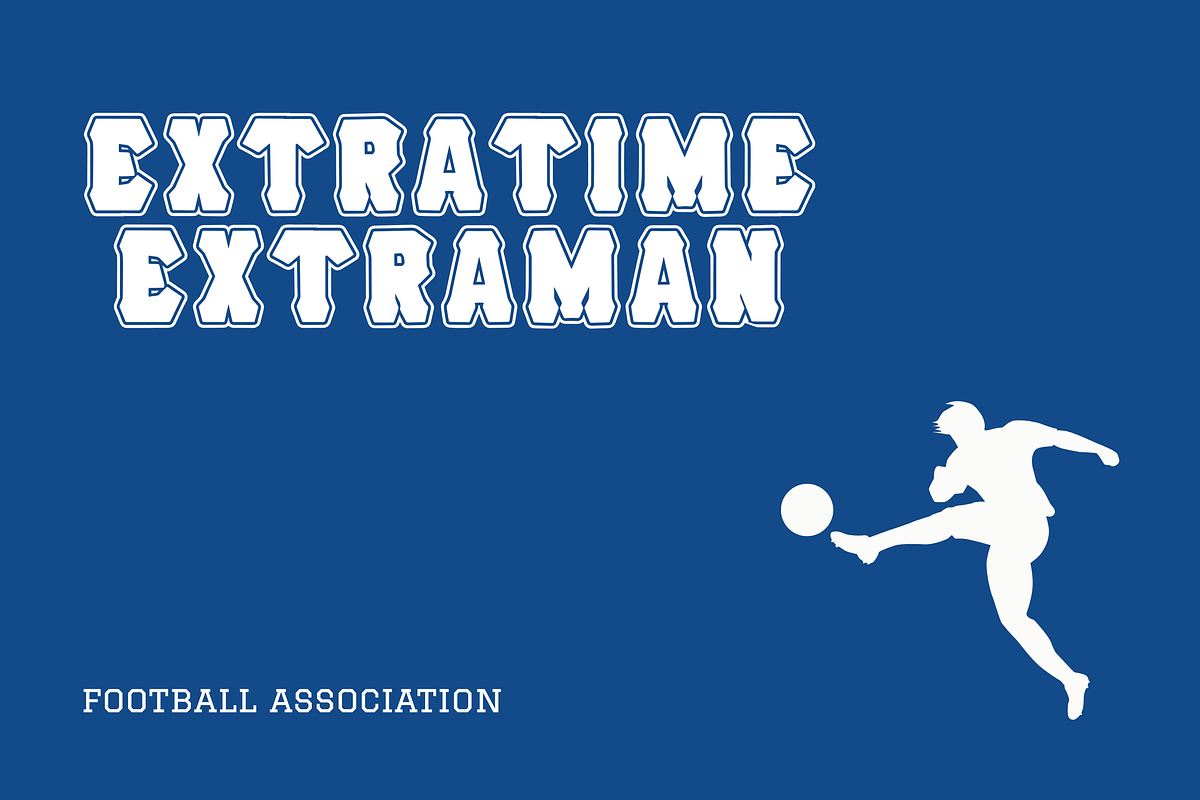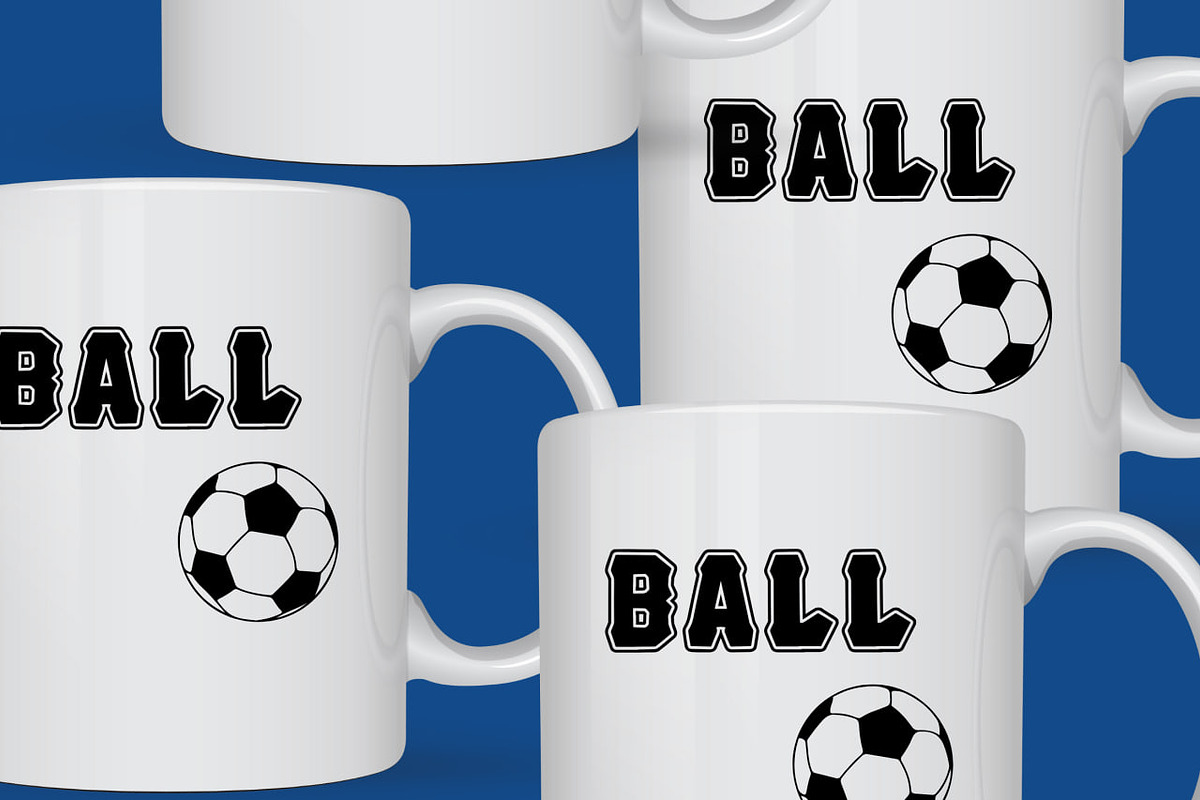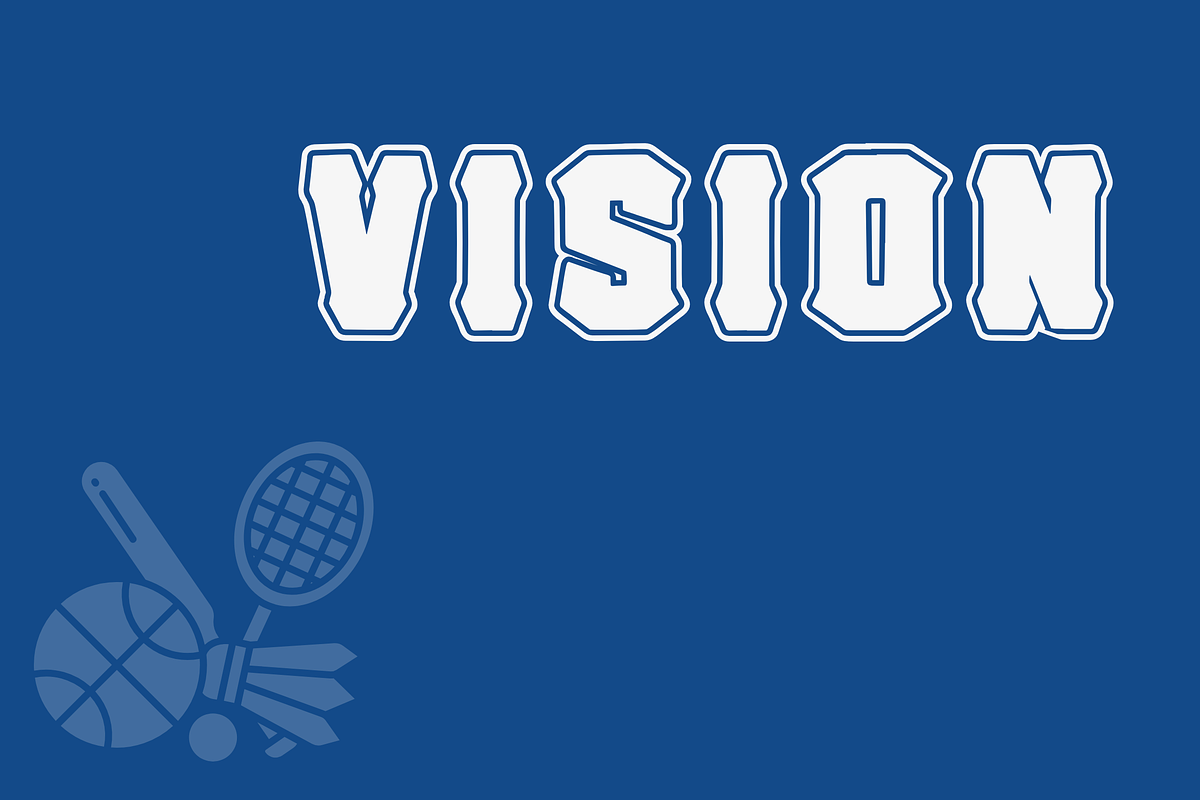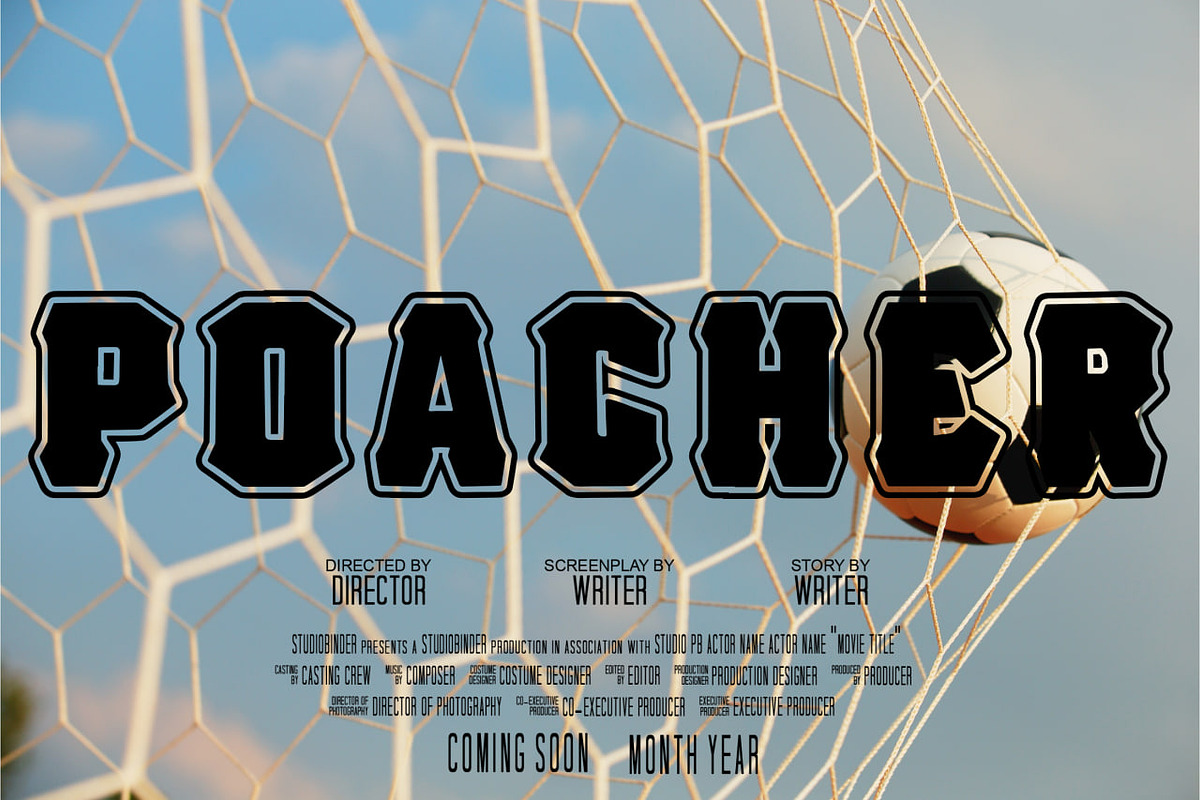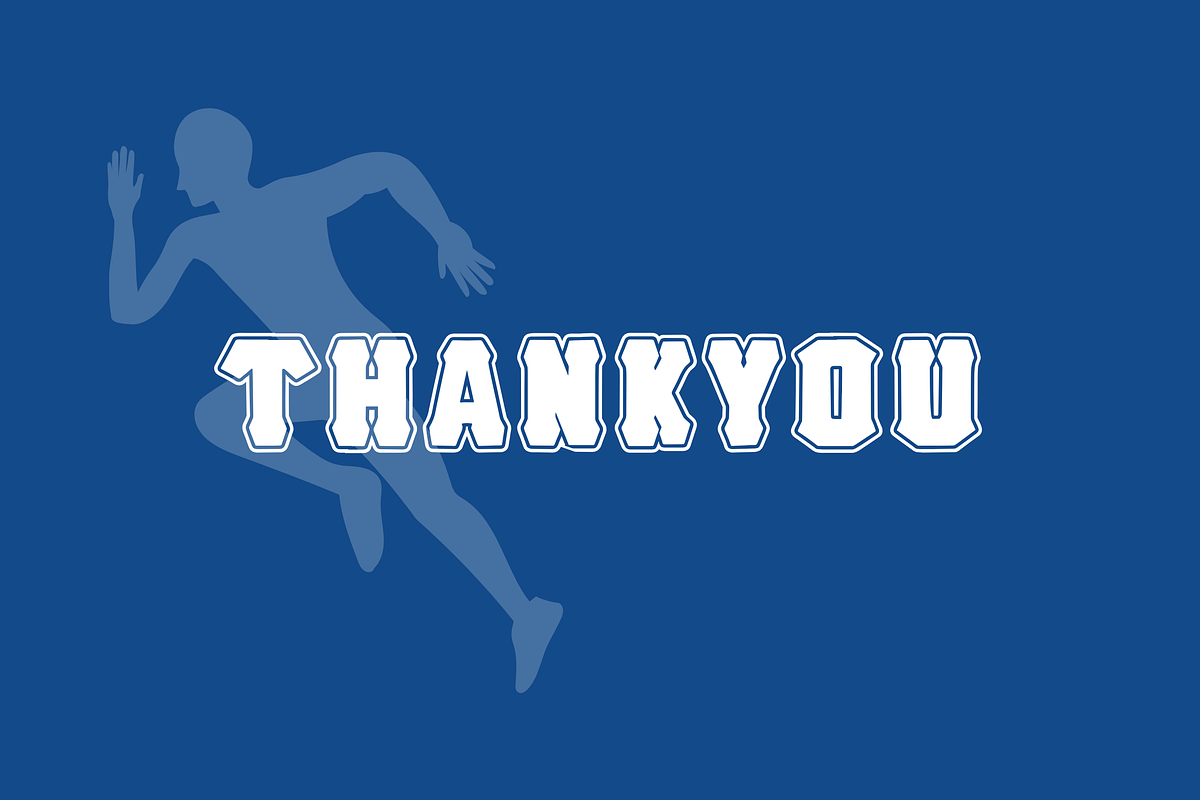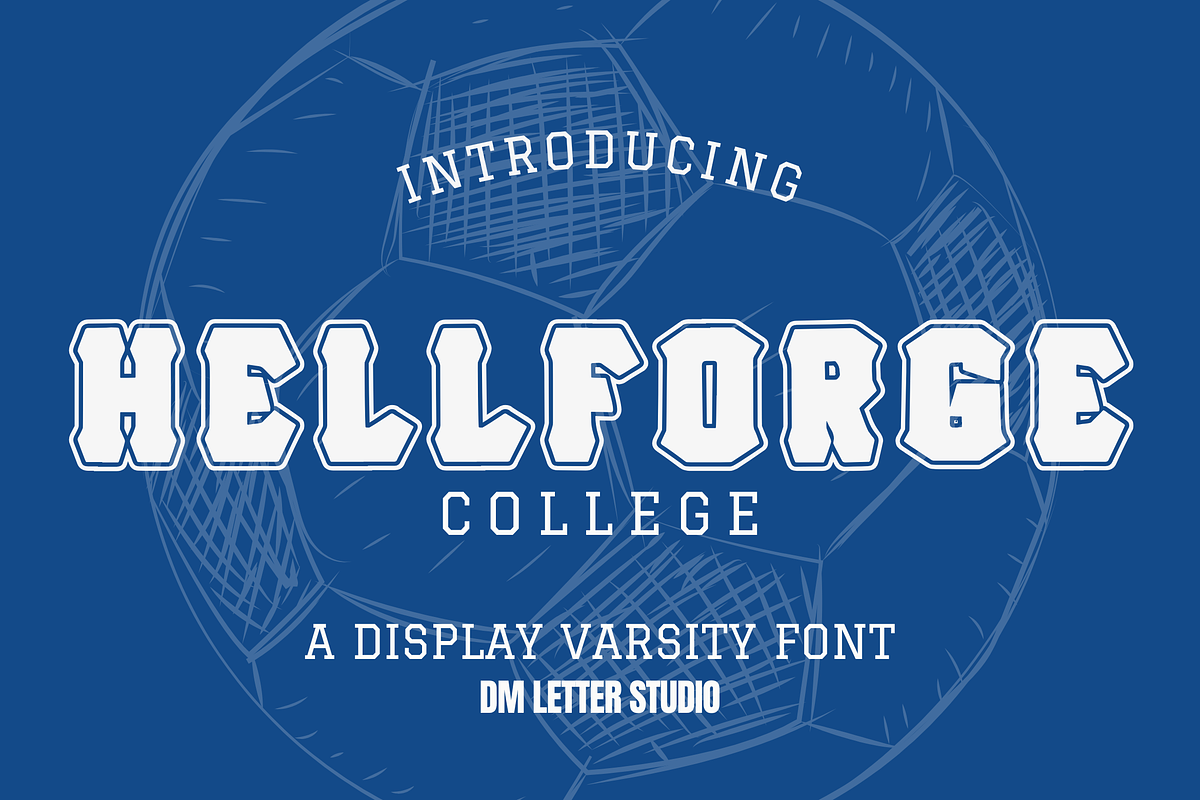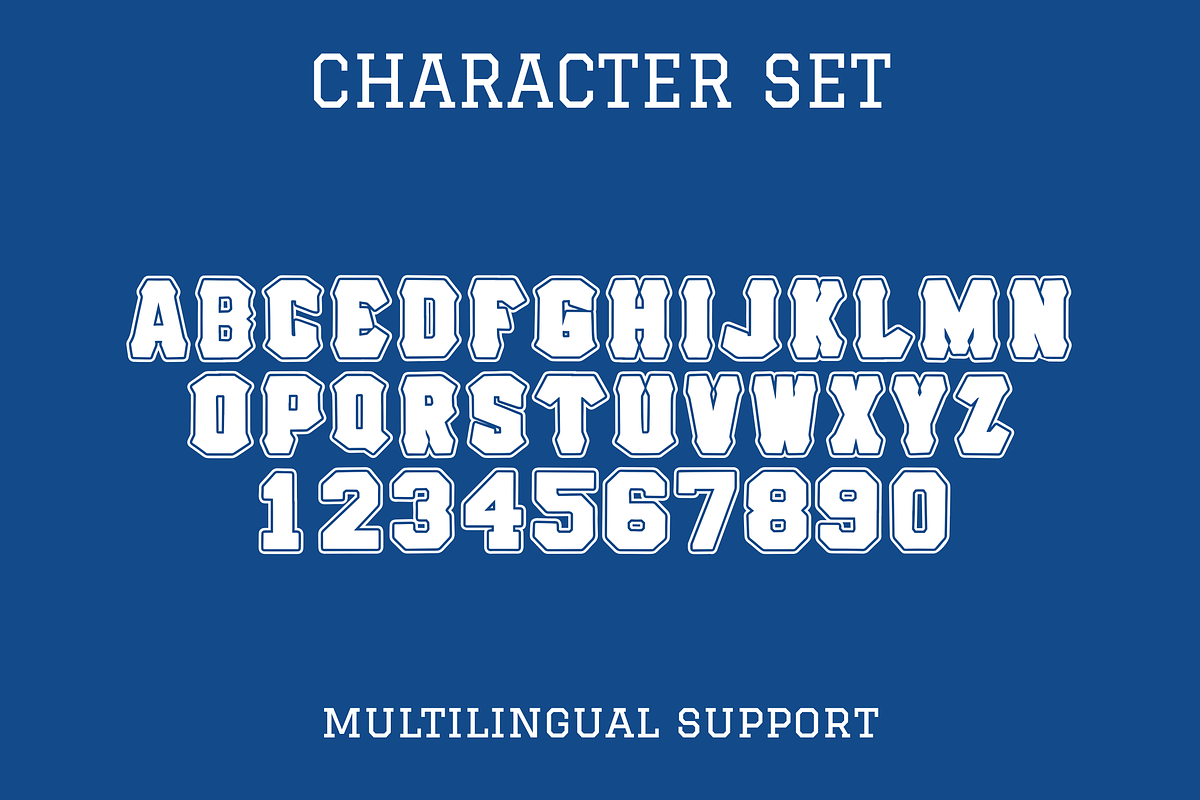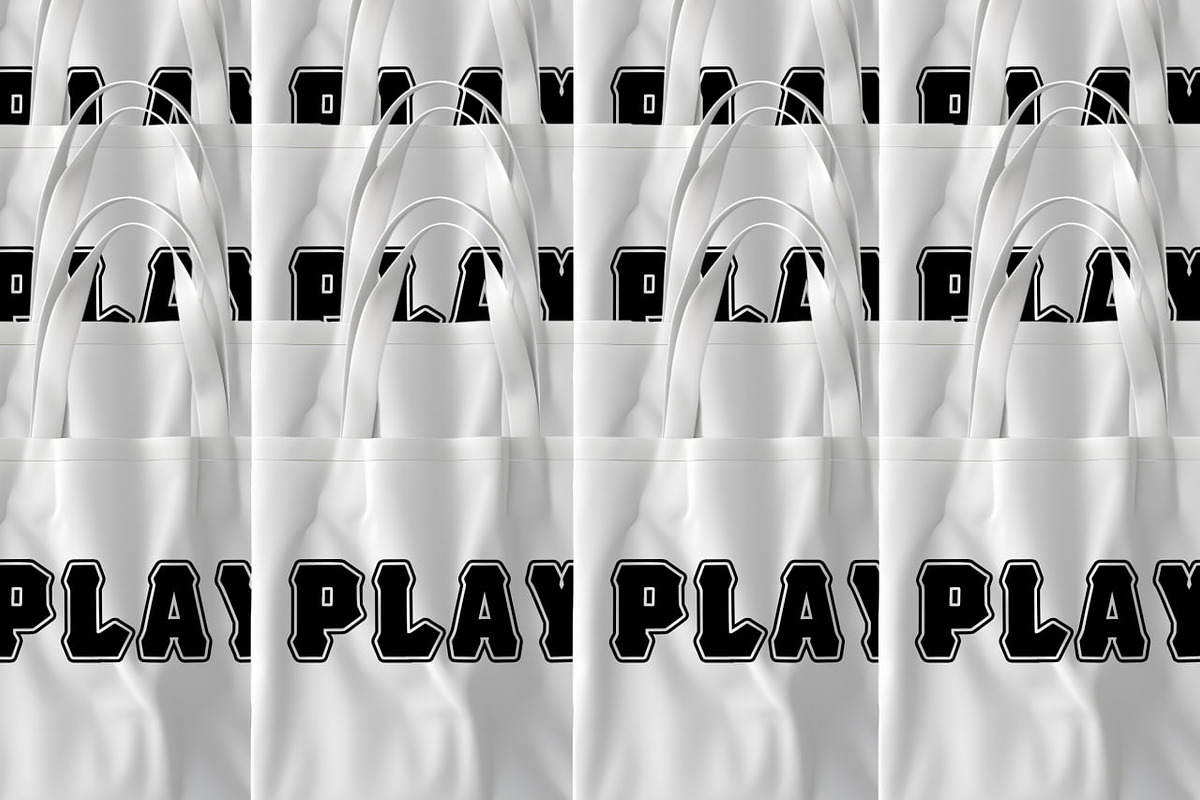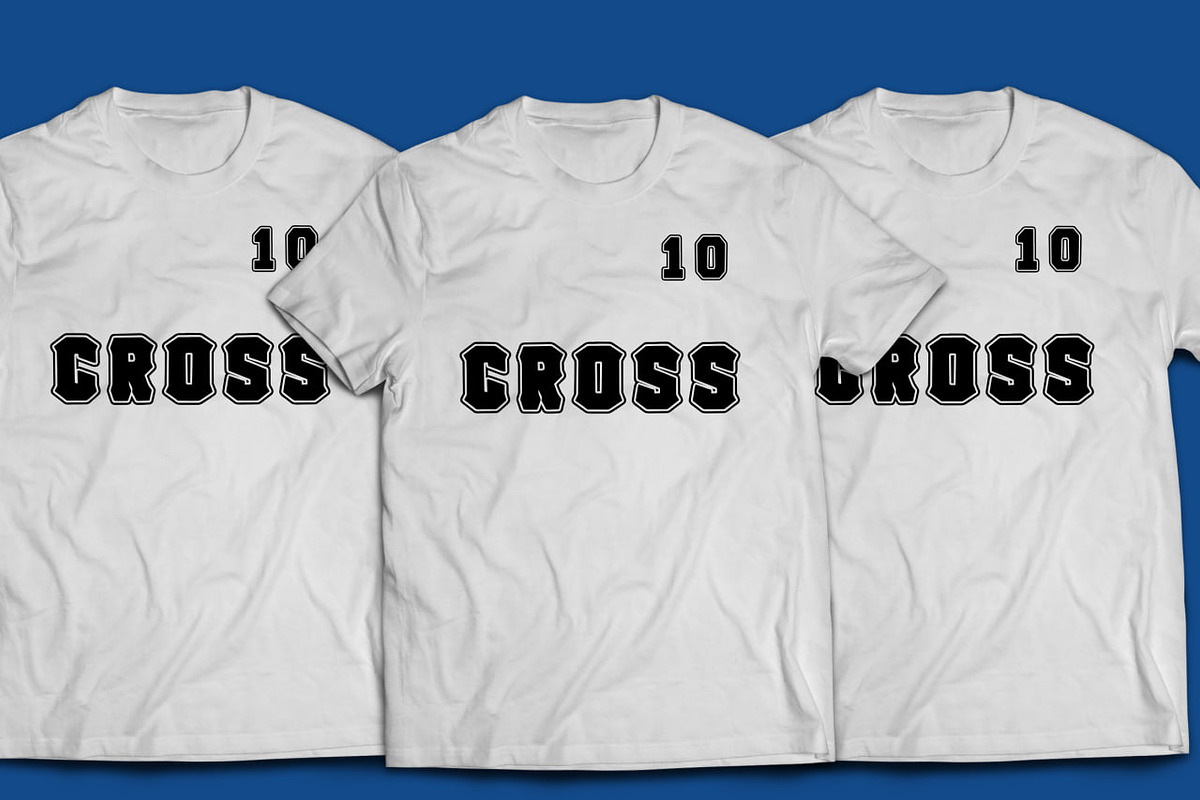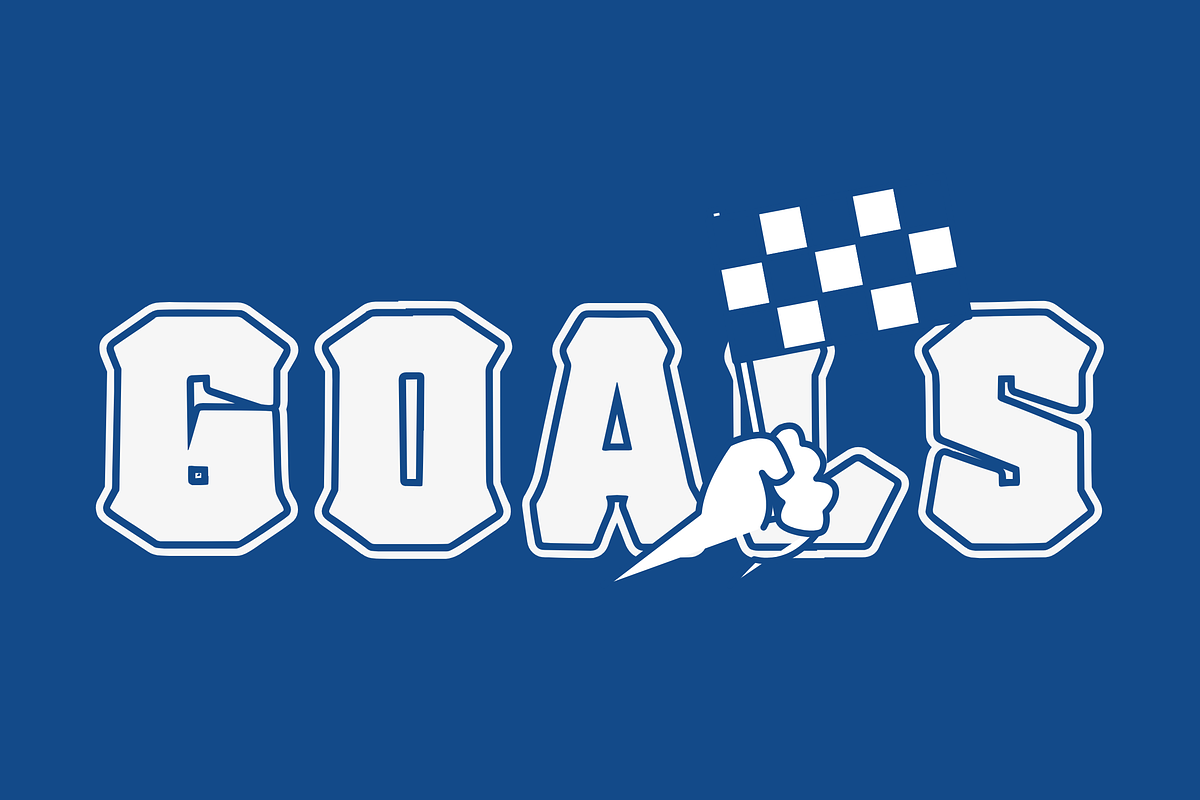
Hell Forge College
Meet Hell Forge College, the Varsity Display Font
Hell Forge College is a bold varsity-style display font built with a forged, athletic character. The shapes feel strong and structured, inspired by classic college lettering with a rugged edge. Each letter carries confident weight, making headlines look powerful and team branding feel authentic. Use Hell Forge College for sports designs, campus themes, streetwear, team merch, posters, and bold logo projects. As a result, your typography feels energetic, competitive, and ready for game day.
Fast layouts with the Hell Forge College Font
Start with stacked team names or bold initials for maximum impact. After that, pair it with a clean sans serif for smaller supporting text like dates or slogans. Because the style is bold, keep spacing balanced so letters don’t feel crowded. In addition, it works beautifully inside shields, circular badges, and ribbon banners. Finally, save palettes like navy and white, red and cream, black and gold, or forest green and ivory for classic varsity looks.
Creative uses and quick wins
- Team logos, jersey names, and sports branding
- College-themed posters and event graphics
- Streetwear hoodies, caps, and varsity merch
- Gym, club, and tournament branding
- Uppercase and lowercase letters
- Numbers and basic punctuation
Design tips for Hell Forge College
Use it for bold headlines and keep body text simple for clarity. Also, increase tracking slightly for cleaner embroidery or vinyl cutting. For print, export at 300 DPI and test small details before production. For digital use, scale up a bit to keep edges crisp. Finally, combine it with outlines or drop shadows for a classic varsity effect.